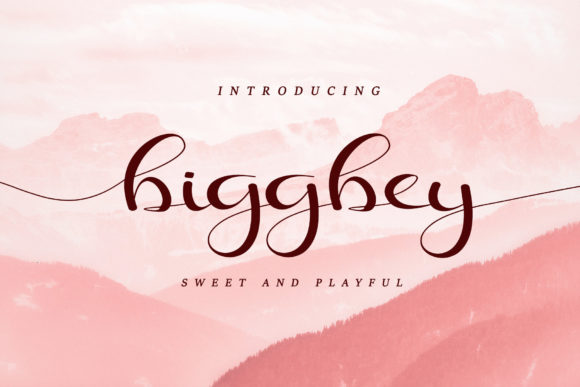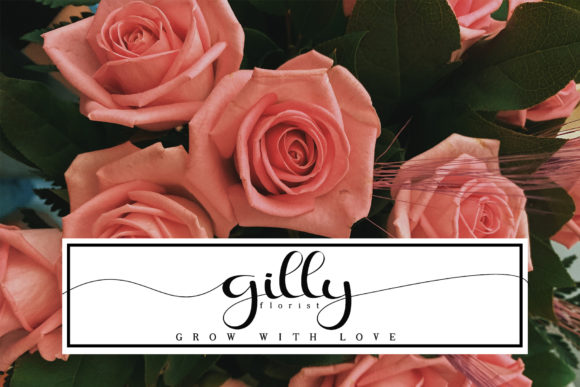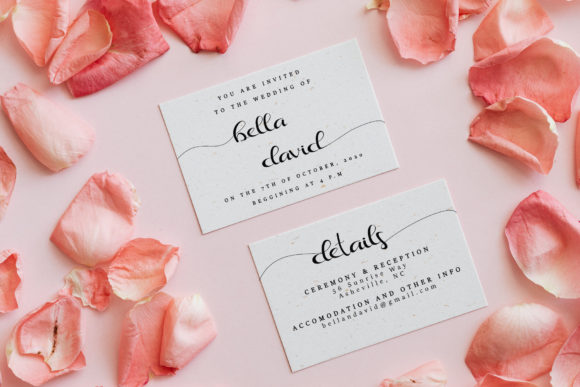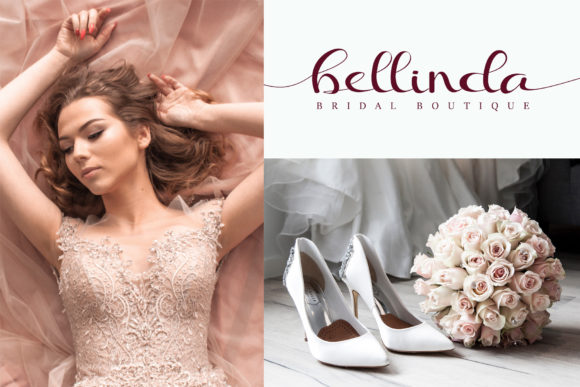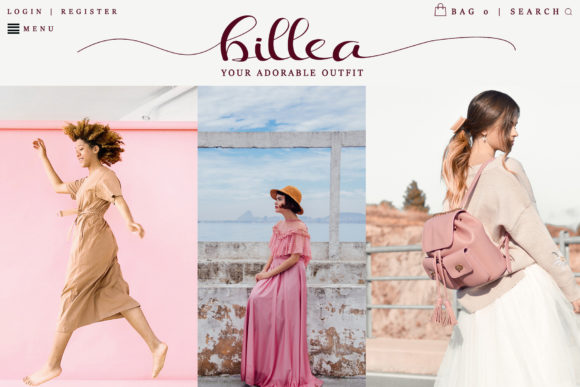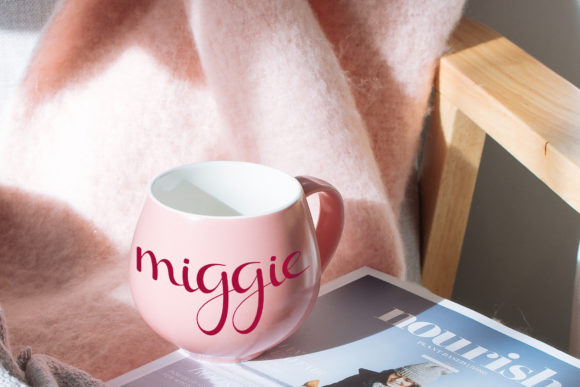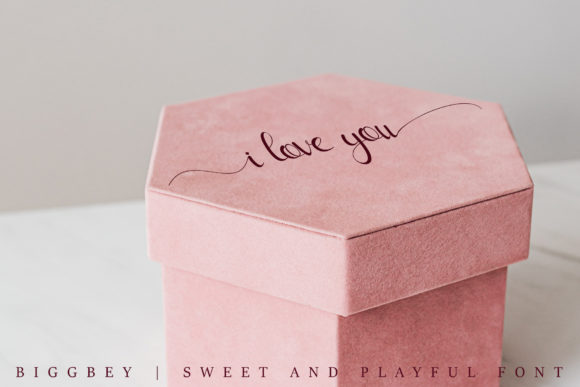
Biggbey Font
About Biggbey Font
Biggbey is an incredibly sweet, round lettered handwritten font. This font is PUA encoded which means you can access all of the glyphs and swashes with ease! Fall in love with its incredibly versatile style and use it to create spectacular designs!